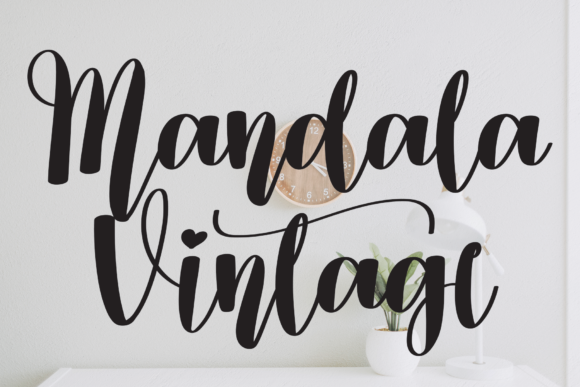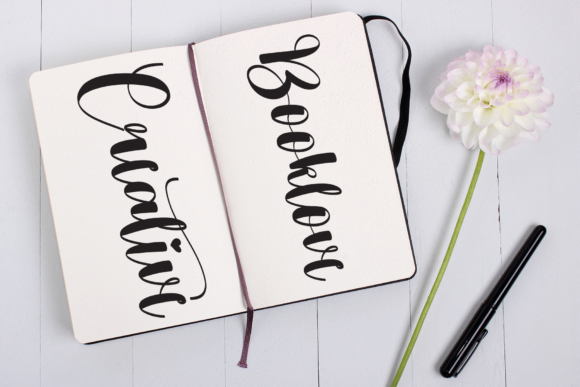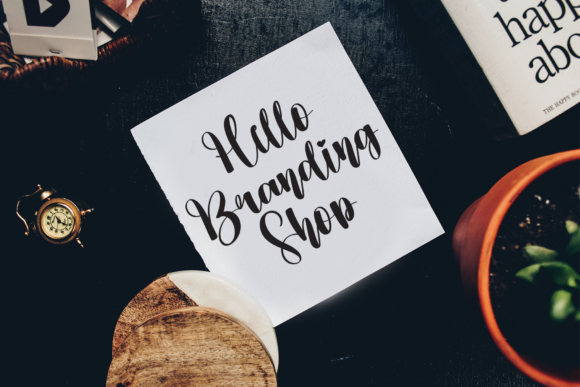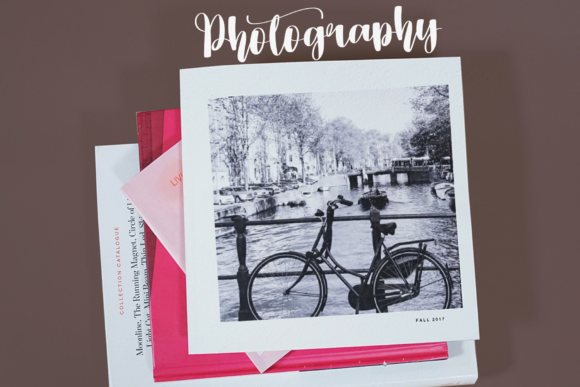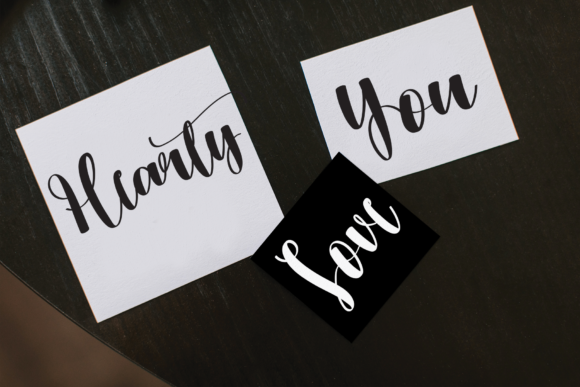
Mandala Vintage Font
About Mandala Vintage Font
Mandala Vintage is a delightful script font that showcases charming and playful characters, creating a whimsical and captivating design. The characters appear to dance along the baseline, adding a sense of movement and liveliness to your creative projects.
With its unique and eye-catching style, Mandala Vintage is perfect for adding a touch of charm and personality to your designs. Whether you’re working on branding, packaging, invitations, posters, or any other creative endeavor, this font will make your ideas truly stand out.
The playful nature of Mandala Vintage allows you to create designs that are full of character and warmth. Each letter has a distinct and artistic touch, making your text appear handcrafted and inviting. The flowing and rhythmic strokes of the font bring a sense of harmony and balance to your compositions.
By incorporating Mandala Vintage into your designs, you can evoke a sense of nostalgia and vintage appeal. The font’s charming characters and playful energy make it an excellent choice for projects that aim to capture a retro or whimsical aesthetic.
Whether you’re designing for print or digital media, Mandala Vintage’s versatile nature ensures its suitability for a wide range of applications. Its distinct personality adds a unique flair to logos, branding materials, social media graphics, greeting cards, and more.
When you integrate Mandala Vintage into your creative ideas, you’ll notice how it breathes life and personality into your designs. It stands as a testament to your creativity and attention to detail, leaving a memorable impression on your audience.
Embrace the charm and playfulness of Mandala Vintage, and let it elevate your designs to new levels of creativity and appeal.